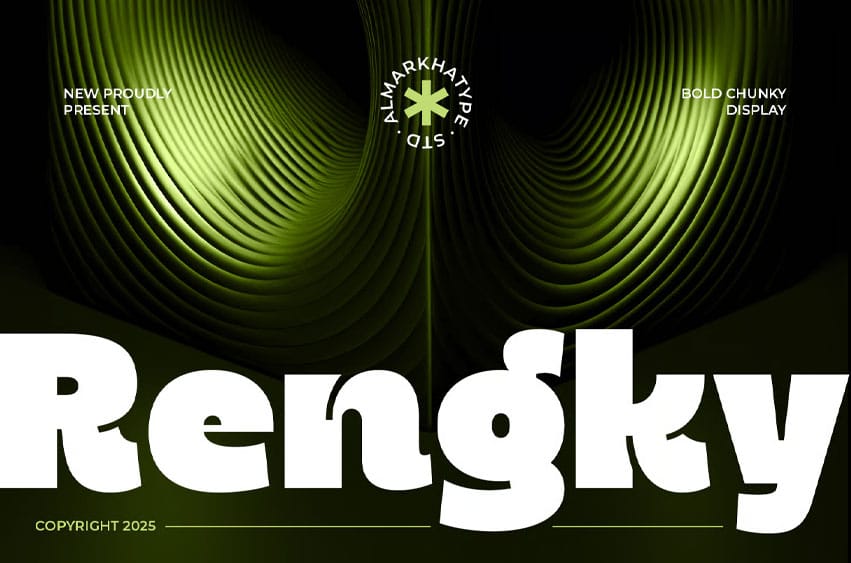
Rengky Font is a display sans-serif font with unique ink trap details, bringing a playful, modern, and bold look. Its strong character, combined Rengky, is a delightfully quirky display sans-serif where functionality meets fun. Designed with distinctive ink traps and a chunky bold stance, this typeface turns technical details into a stylistic advantage—perfect for projects that demand personality with a punch.
Ink-Trap Playfulness: Intentional cut-outs add visual intrigue while nodding to print heritage. Bold & Proud: High-impact weight commands attention in headlines and branding. Geometric Charm: Clean sans-serif base with just enough whimsy to stand out. Display-Optimized: Crafted for posters, packaging, and any medium that rewards creativity.
Where It Shines:
Playful branding (food, toys, lifestyle)
Editorial headlines with a twist
Gaming & pop culture graphics
Packaging that winks at tradition
Rengky proves that rules are made to be bent—with a smile.